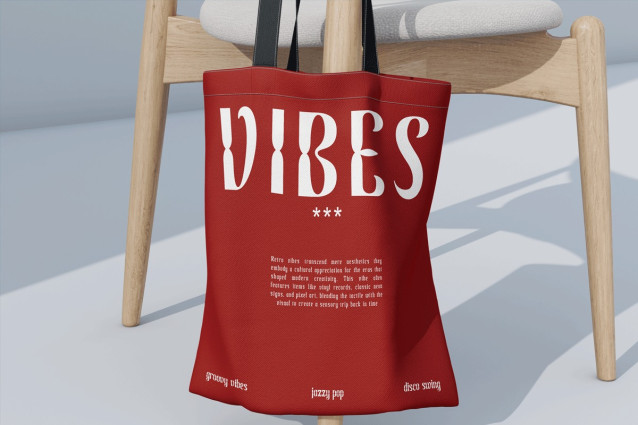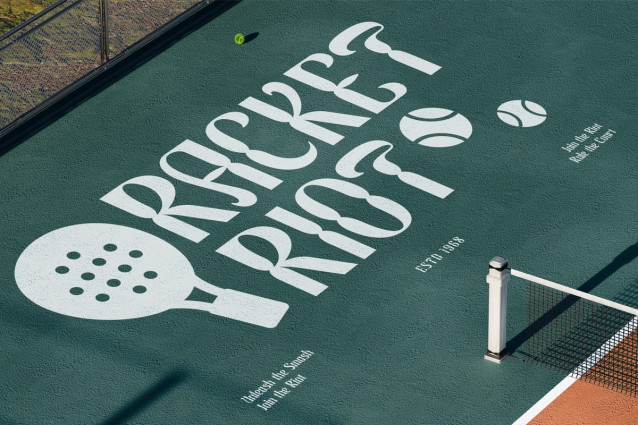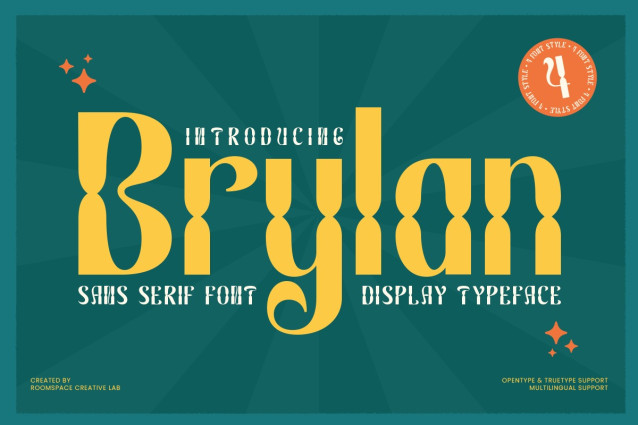
Brylan Font
Brylan Font is a retro-inspired display sans font that combines geometric precision with playful character. Designed to evoke 70s modernism, it delivers strong visual presence and timeless readability ideal for logos, posters, packaging, and editorial layouts.